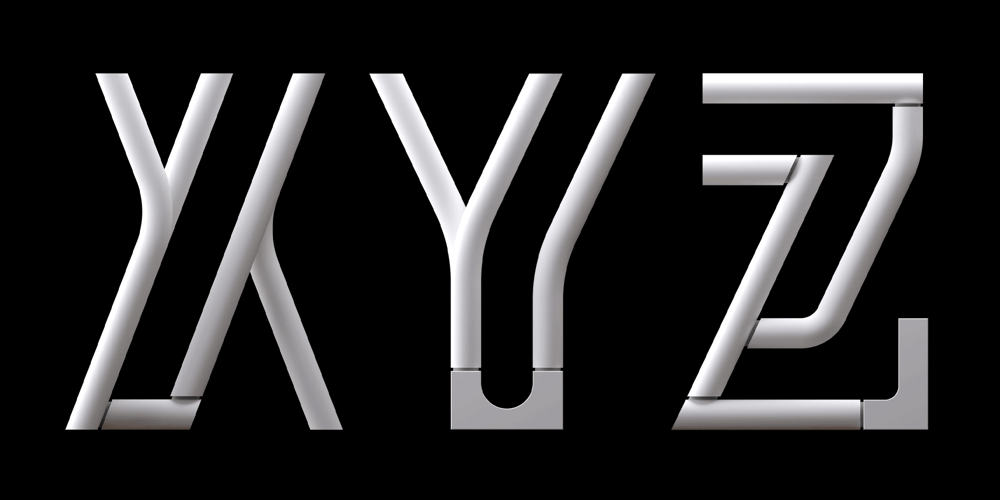
Xyz Font Family was designed by Jonathan Quainton, Rob Gonzalez and published by Sawdust. Xyz contains 1 styles and family package options. Introducing our latest addition to the foundry archive collection, a striking typeface originally designed in 2017 for the Wired UK redesign. This display typeface offers remarkable versatility, capable of being implemented in both flat colour and three-dimensional forms.Its unique design aesthetic draws on the smooth, flowing lines characteristic of parametric and digital design, yet it juxtaposes this sleekness with abrupt connections and junctions that add a layer of complexity and intrigue. The resulting letters possess a bold, almost hieroglyphic appearance, reminiscent of stamps or carvings, making them stand out with a distinctive, timeless quality.Perfect for a variety of applications, this typeface not only captures attention but also lends a sense of depth and sophistication to any design project. Whether used in print or digital formats, its ability to seamlessly transition between two-dimensional and three-dimensional forms ensures it remains a versatile and essential addition to any designer’s toolkit.